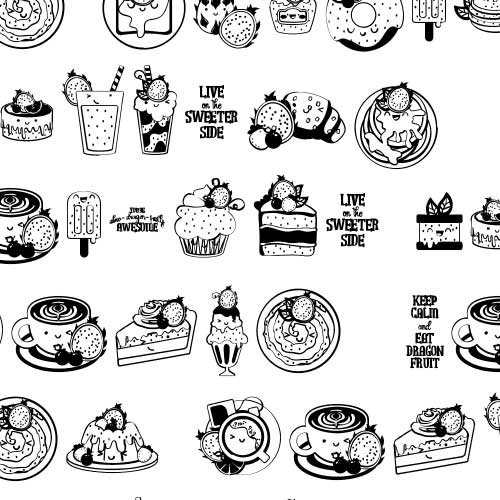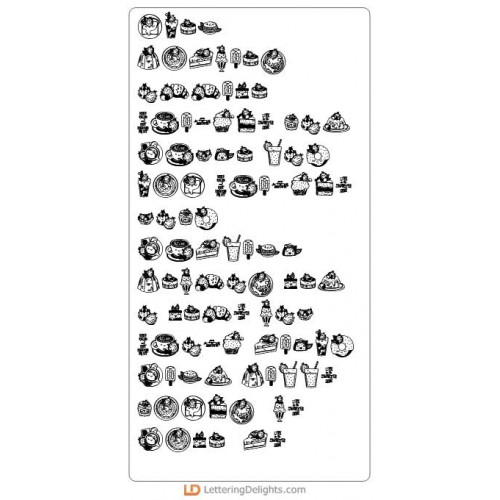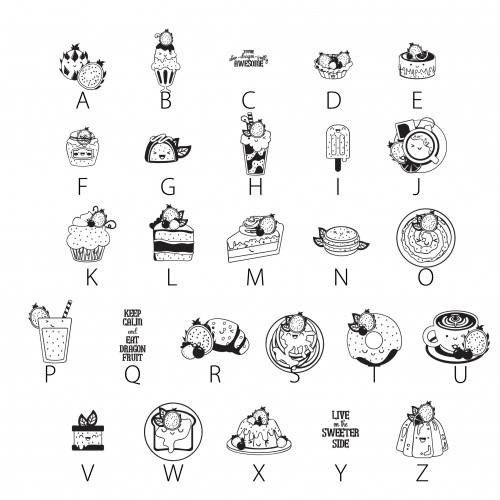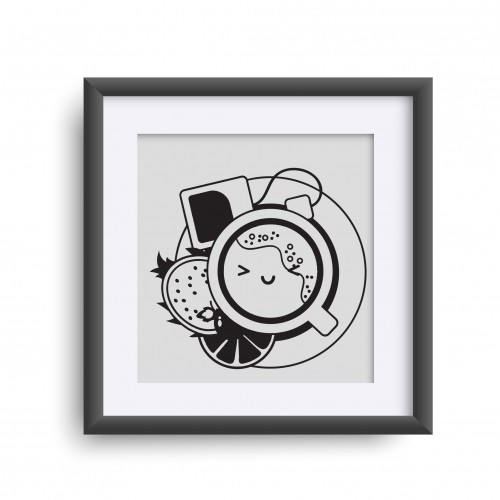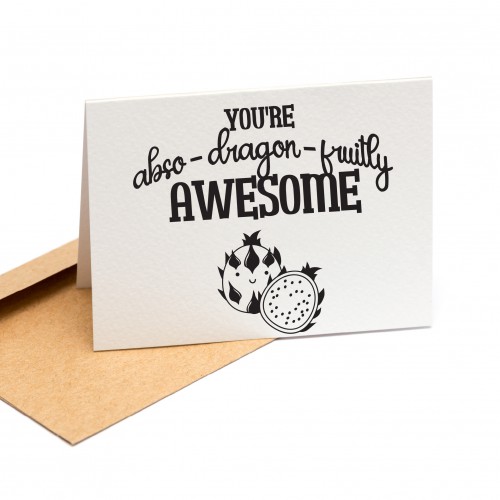
DB Dragon Fruit - DB
This fun doodlebat font features 26 different Dragon Fruit treats with Kawaii style faces, perfect for cards, crafts, gifts, cards, planner stickers, parties, scrap book pages and more!